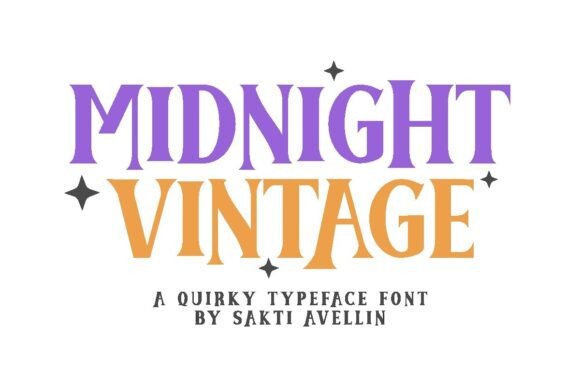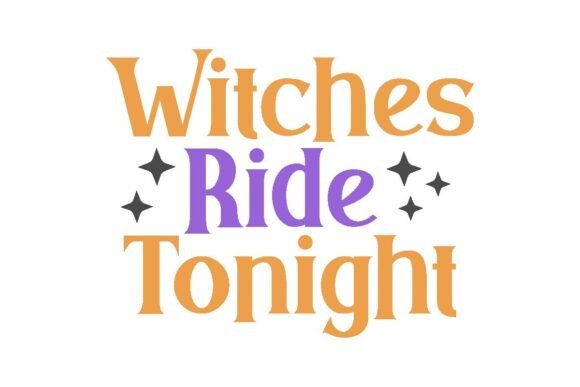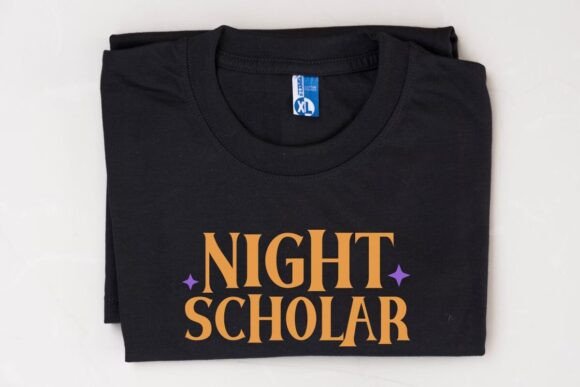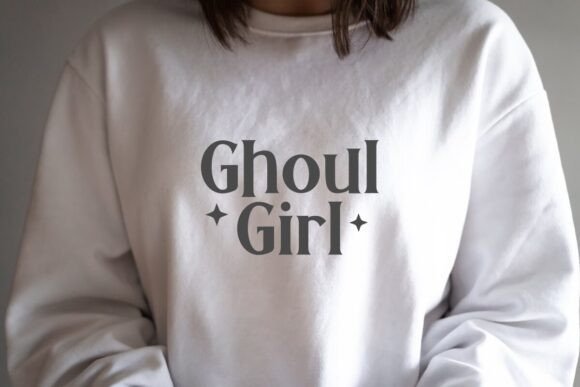
Midnight Vintage Font
About the Midnight Vintage Font
Presenting Midnight Vintage Font, a unique and stylish typeface that will make your work stand out. Immerse yourself in the classic charm of Midnight Vintage, an eccentric font designed with a quirky appeal. Exuding a timeless grace, this font makes an impeccable choice for branding efforts, enhancing the appeal of quotes, and popping out on t-shirts. Let Midnight Vintage elevate the elegance of your invitation cards and keychains. Transform the ordinary to extraordinary on posters and craft projects. Explore the multifaceted personality of Midnight Vintage, a font that beautifully bridges the gap between contemporary design and vintage charm.
Midnight Vintage Font Usage Examples
Midnight Vintage Font Example